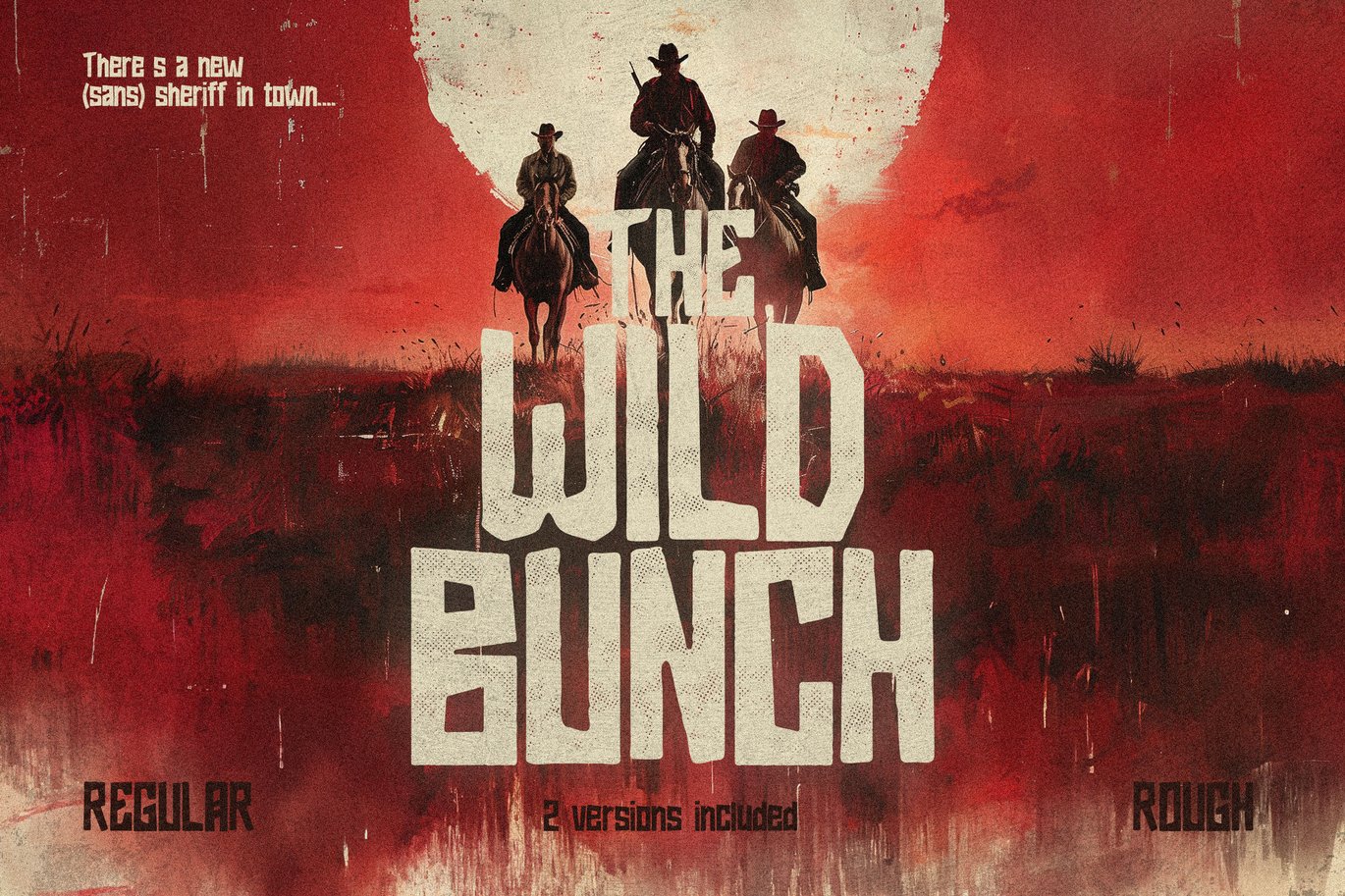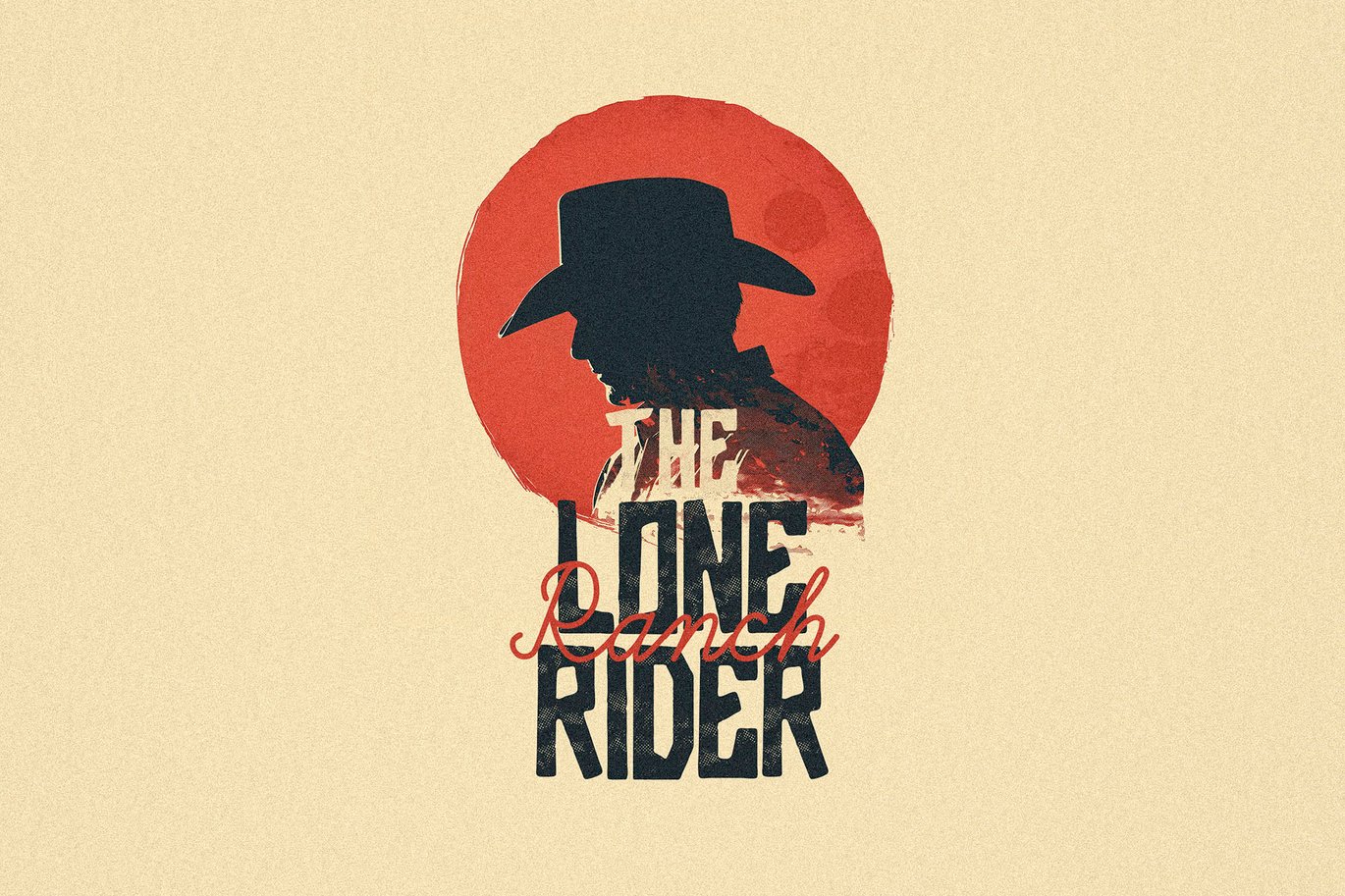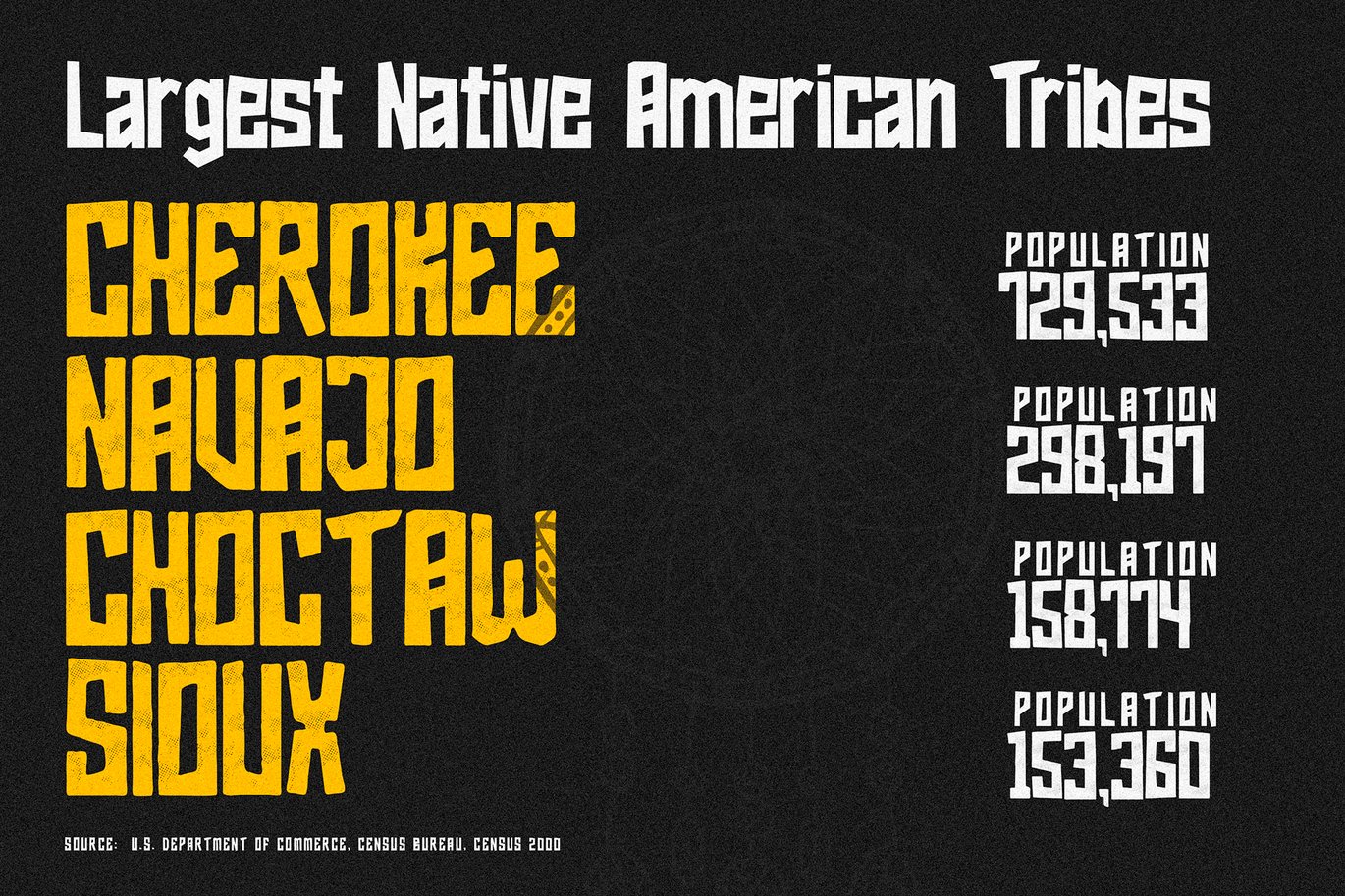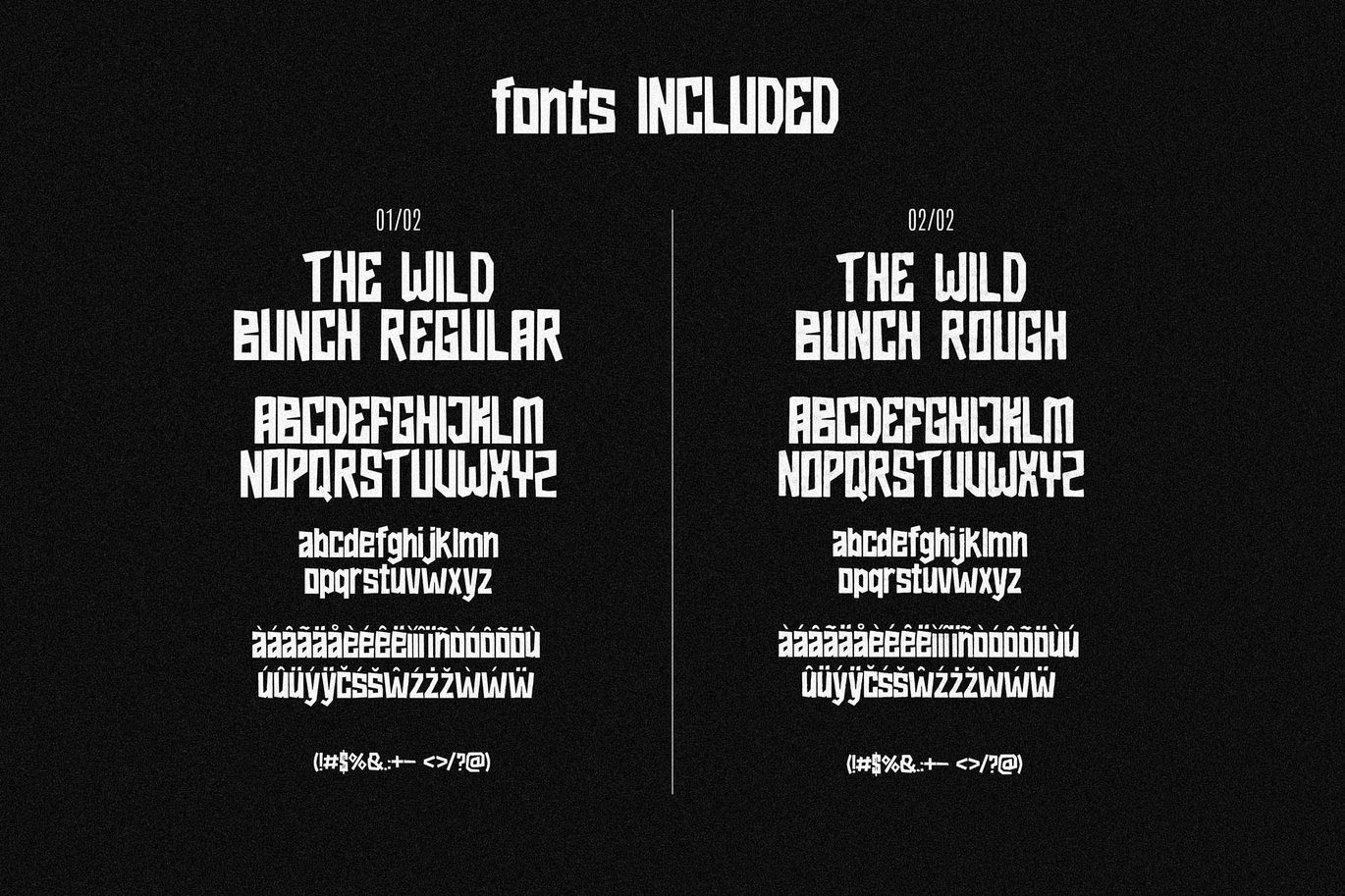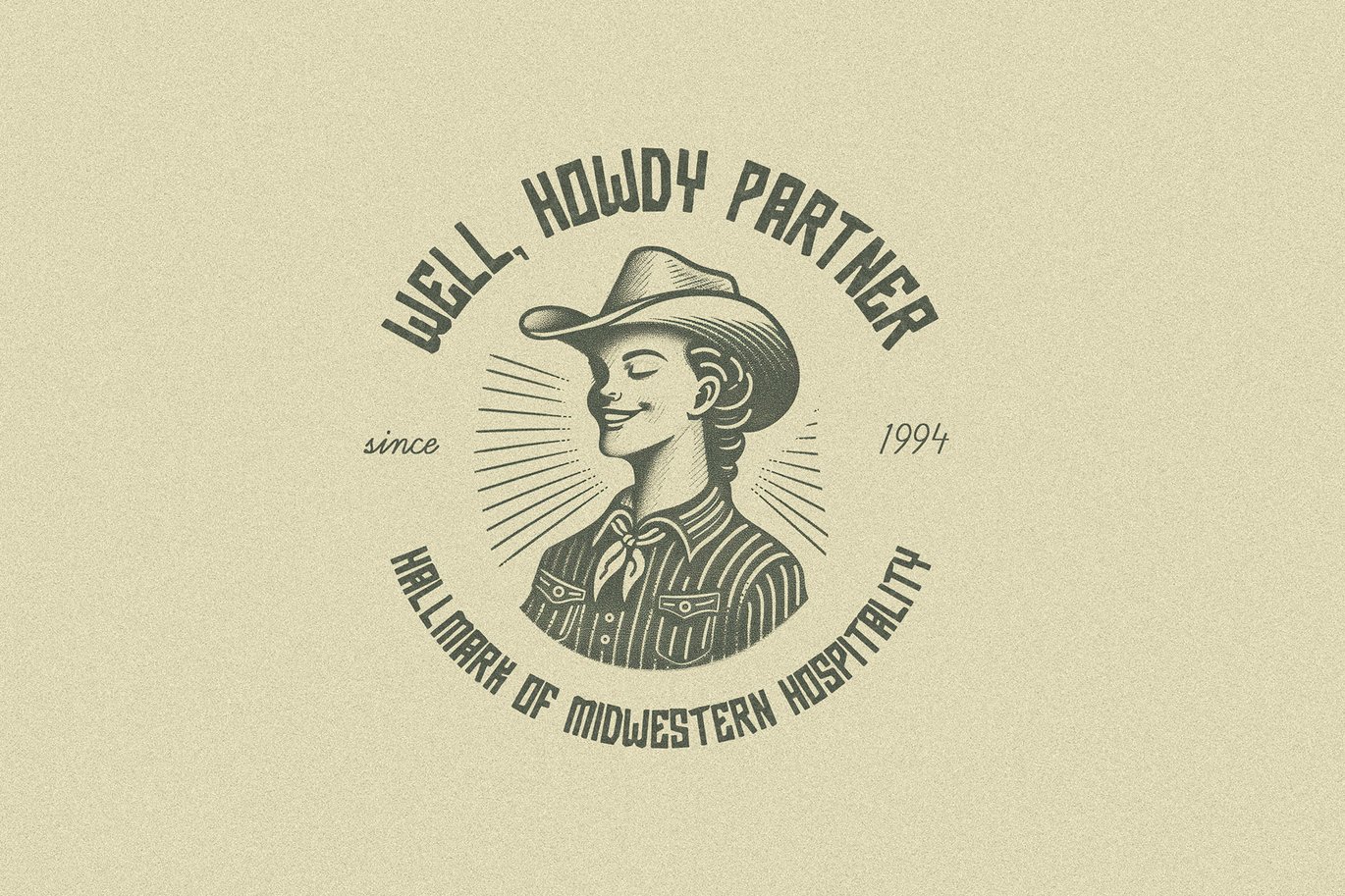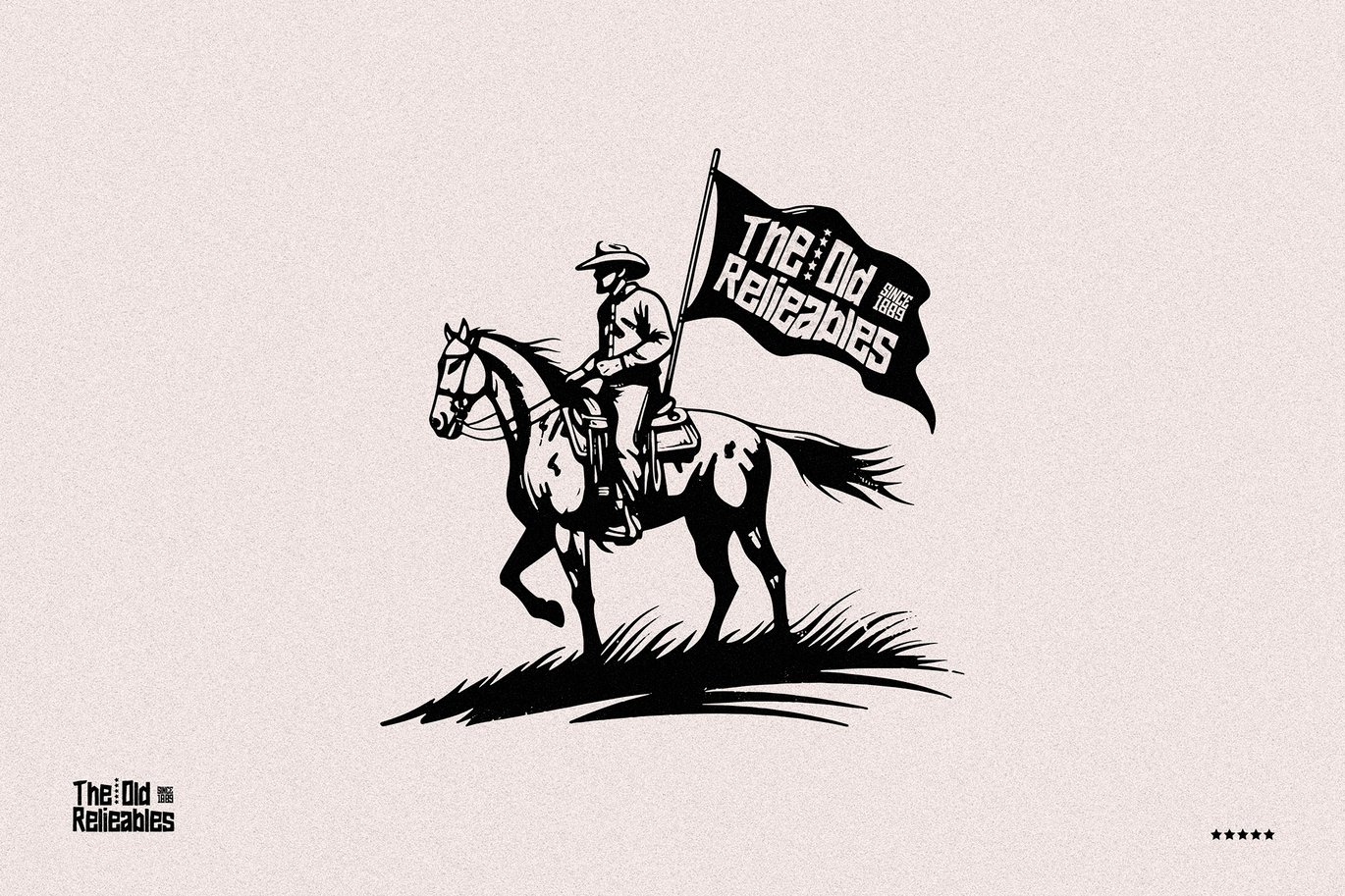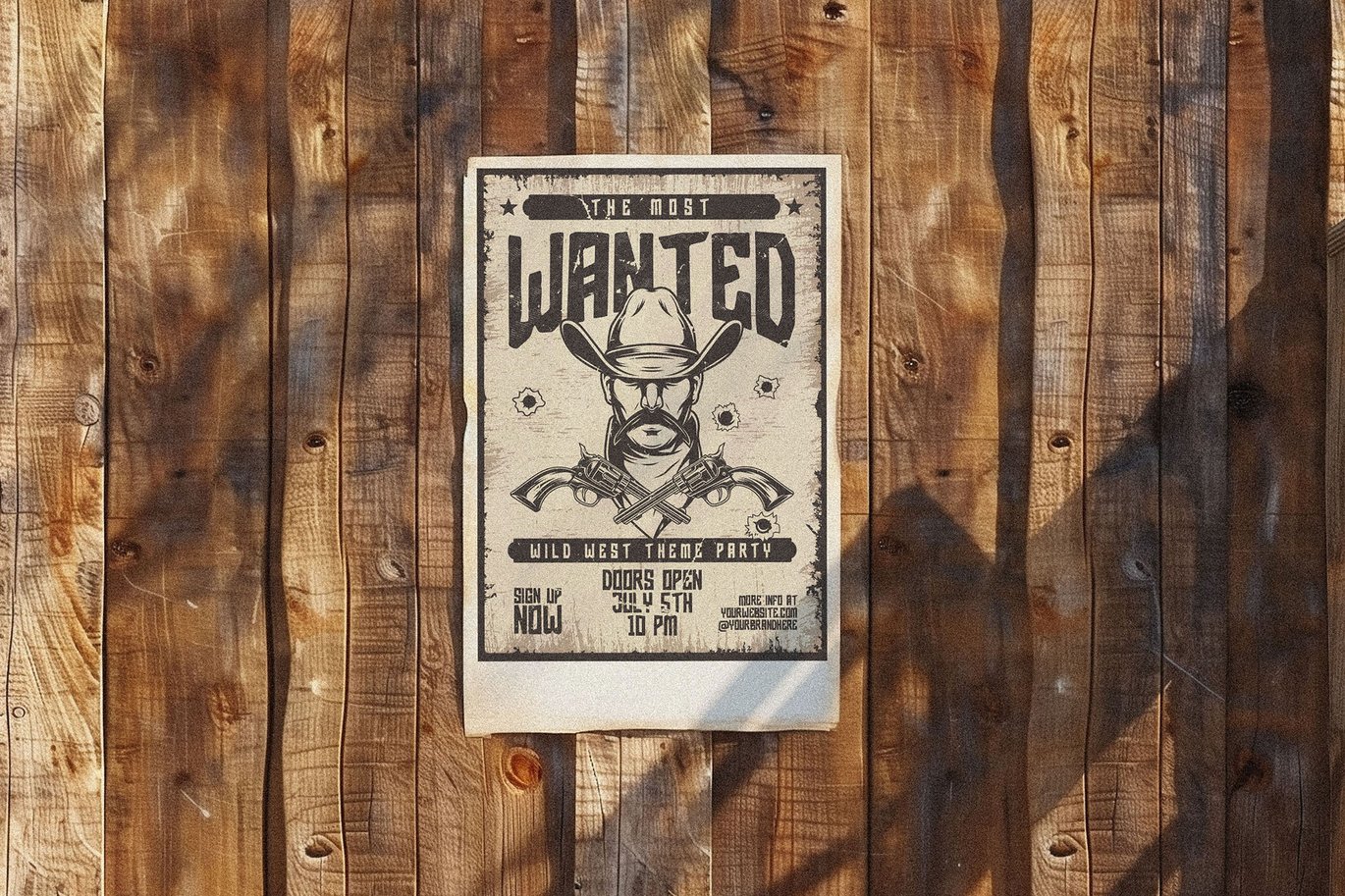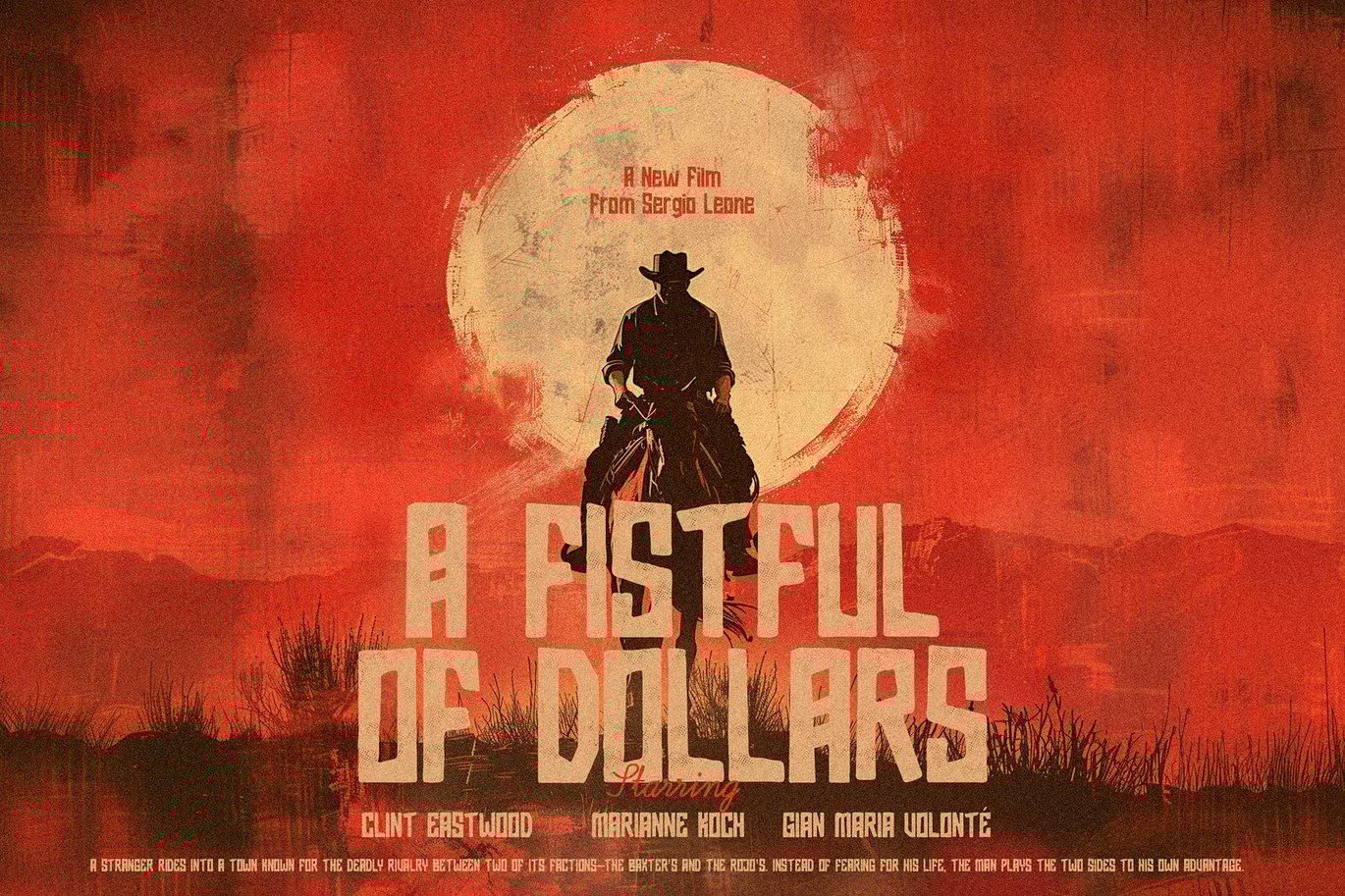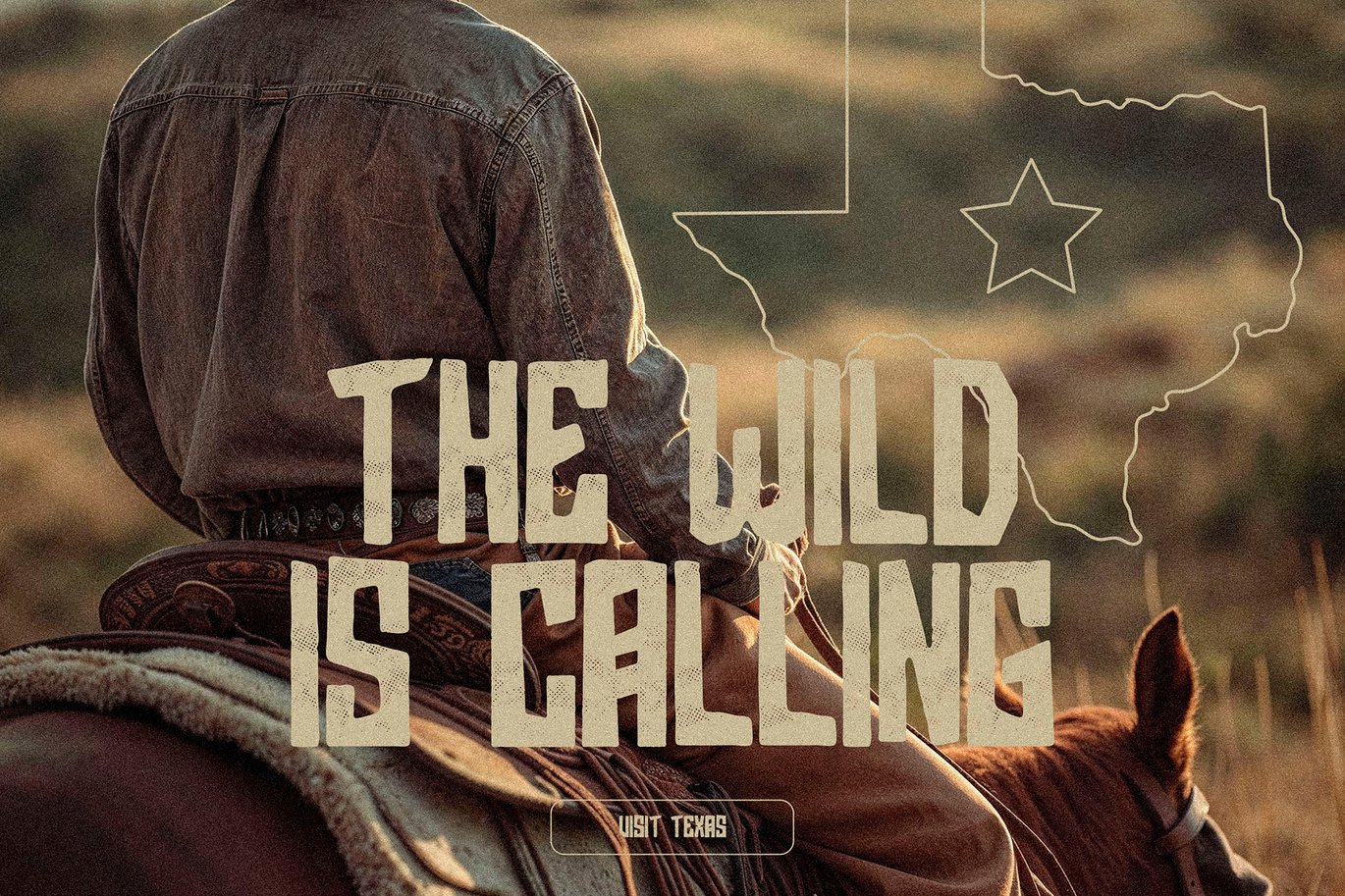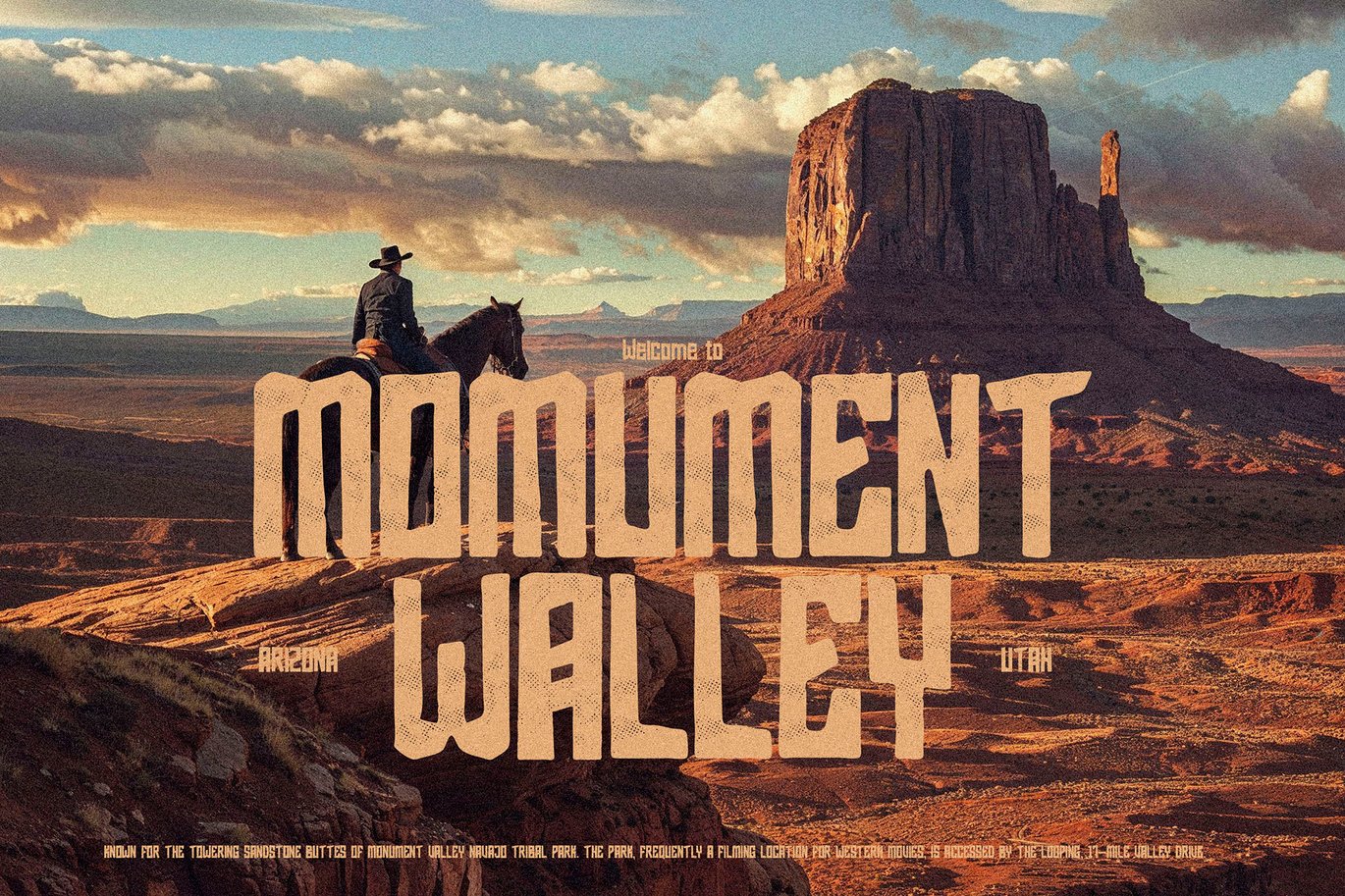
The Wild Bunch – Western Cowboy Display Font
Saddle up, partners! Introducing “The Wild Bunch” – the font that brings the rugged spirit of the Wild West to your designs. This versatile typeface captures the essence of weathered wanted posters, saloon signs, and dusty trail markers, all while maintaining modern readability.
The Wild Bunch is a bold, serif font that embodies the raw character of the American frontier. Available in two distinct flavors – “Regular” and “Rough” – this typeface offers flexibility for various design needs.
The Regula version provides crisp, defined edges, perfect for clear communication with a western flair. It’s ideal for body text and situations where legibility is key.
The Rough variant features distressed edges and a weather-beaten appearance, as if carved by a seasoned cowboy’s knife or worn down by years in the unforgiving desert sun. This version adds an authentic, aged look to your designs.
Both versions include uppercase and lowercase letters, numerals and punctuation.
Example of use cases:
- Western-themed restaurant menus and signage
- Country music album covers and concert posters
- Rodeo and state fair promotional materials
- Old West historical reenactment event branding
- Vintage-inspired packaging for products like beef jerky or whiskey
- Western movie or TV show title sequences
- Book covers for Western novels or historical fiction
- Country and western clothing brand logos
- Wanted posters for costume parties or themed events
- Retro barbecue restaurant branding
- Designs for country music festivals
- Labels for craft beer with Wild West-inspired names
- And much more!